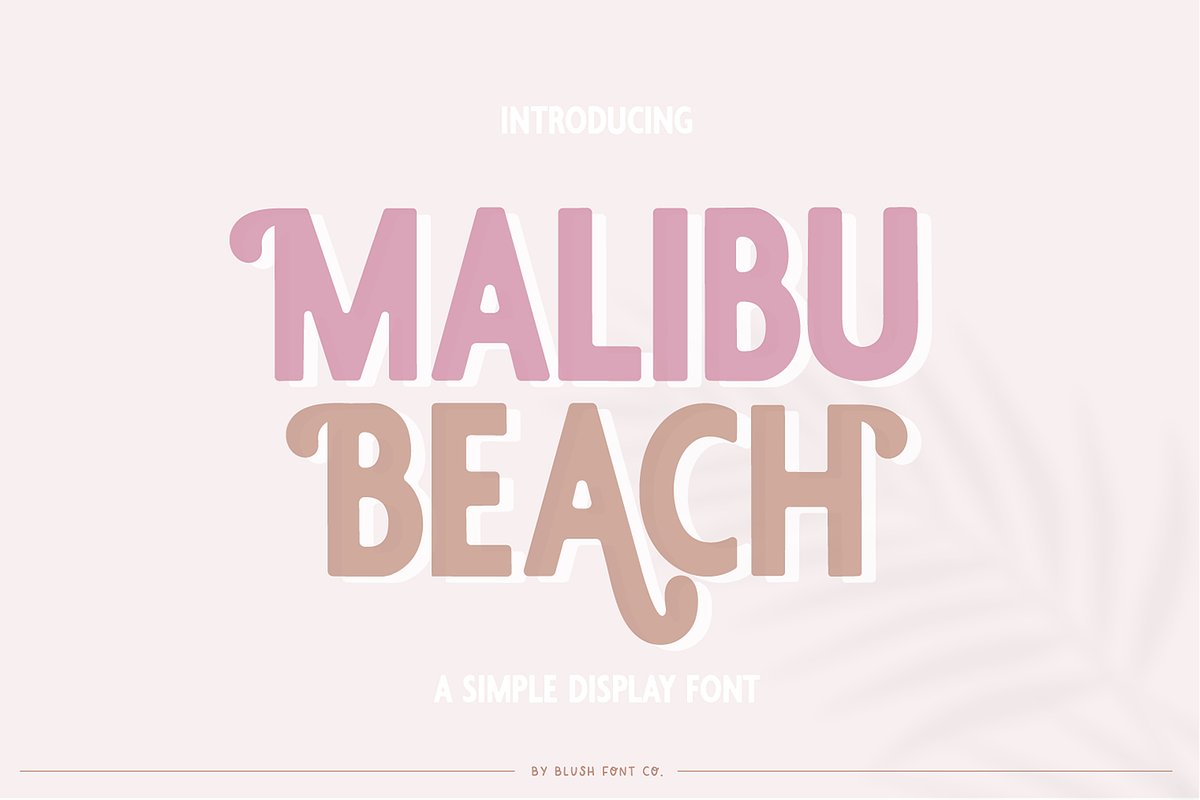
MALIBU BEACH Modern Sans Font Free Download
MALIBU BEACH Modern Sans Font Free Download is a sleek and stylish sans-serif typeface that embodies modern elegance and simplicity. With its clean lines and geometric precision, this font is perfect for a variety of design projects, including branding, logos, website design, advertising, and social media graphics. Its minimalist style adds sophistication and clarity to any project.
MALIBU BEACH Modern Sans Font Free Download combines contemporary design with excellent readability, making it ideal for both digital and print applications. Whether you're working on a chic fashion brand, a tech startup, or a clean and modern website, this font will elevate your design with its crisp and polished look.